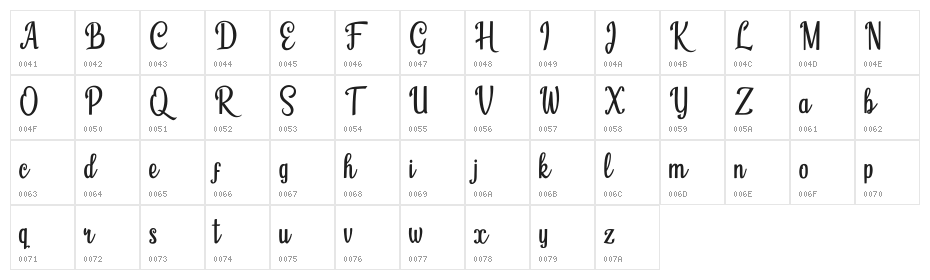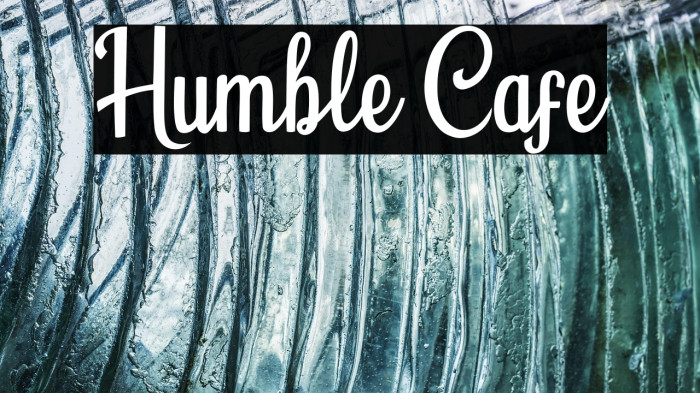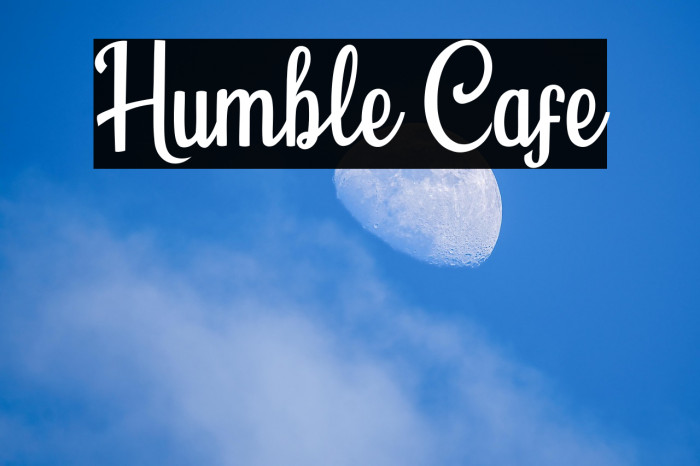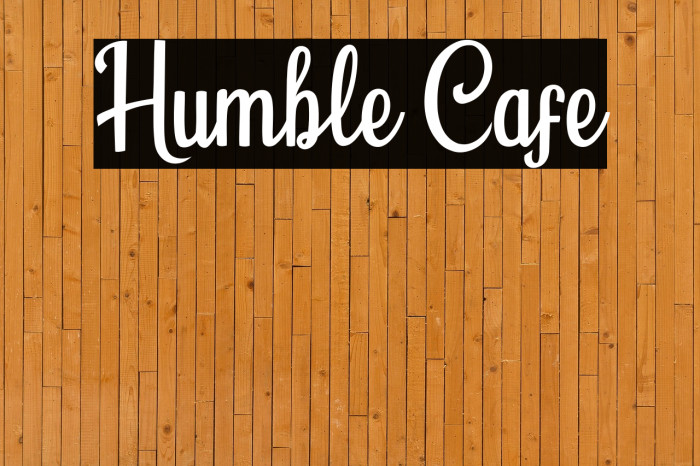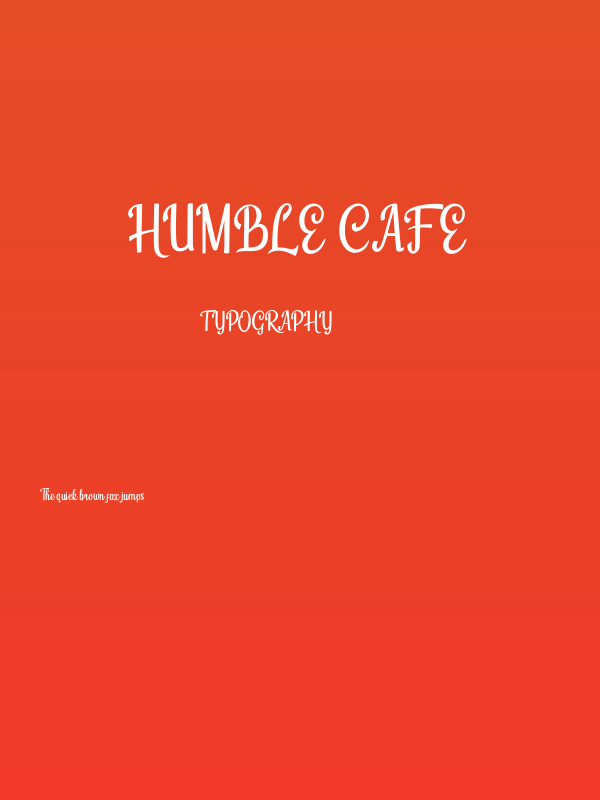
Humble Cafe Font
Humble Cafe Description
This font features a charming and playful script style with a handwritten feel. The uppercase letters are bold and slightly slanted, giving a sense of movement and fluidity. The lowercase letters maintain a consistent flow, with smooth curves and rounded edges that enhance its casual and friendly appearance. The font includes a full set of uppercase and lowercase letters, numbers, and a selection of special characters. Its design is both elegant and approachable, making it versatile for various creative projects.
Use CaseLogos, Invitations, Social media graphics
Proposed ProjectsIdeal for cafe branding, invitations, greeting cards, and social media graphics.